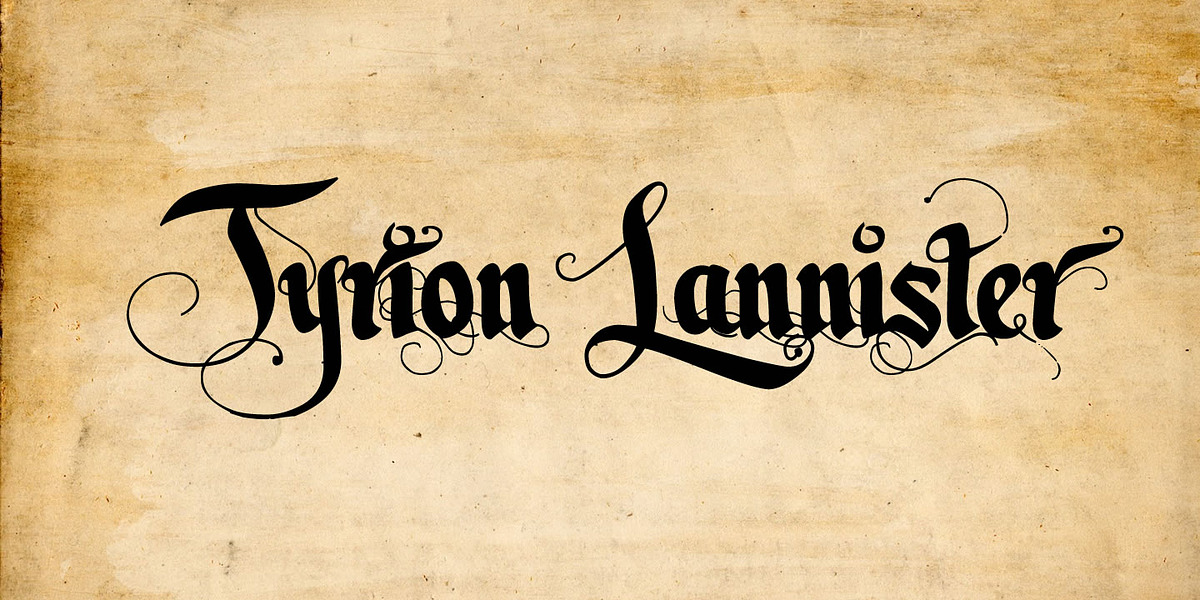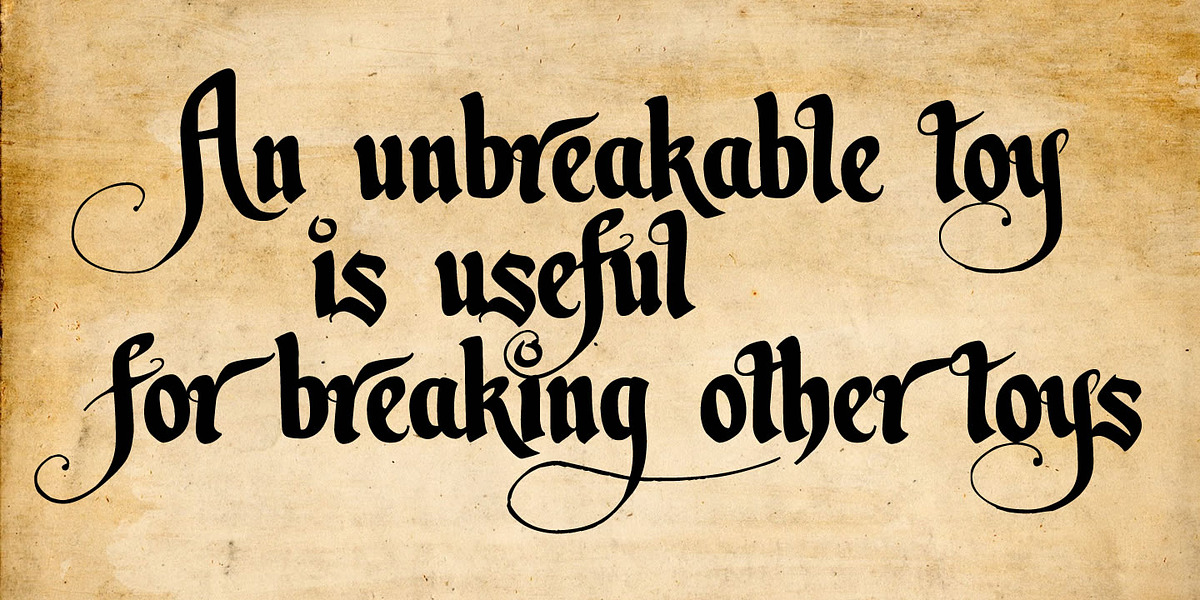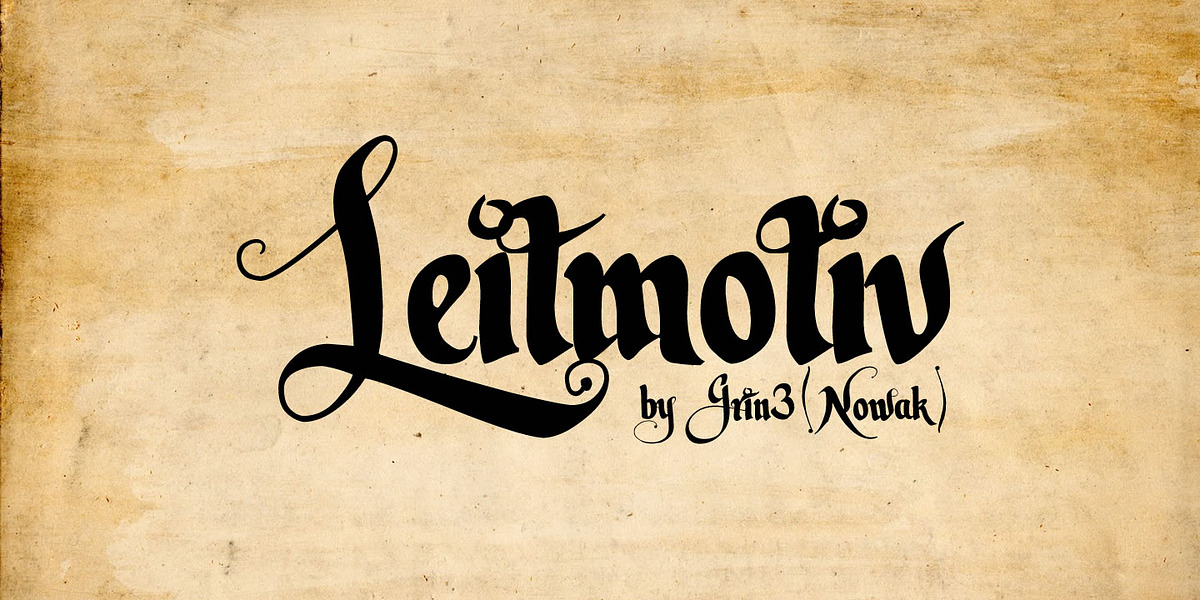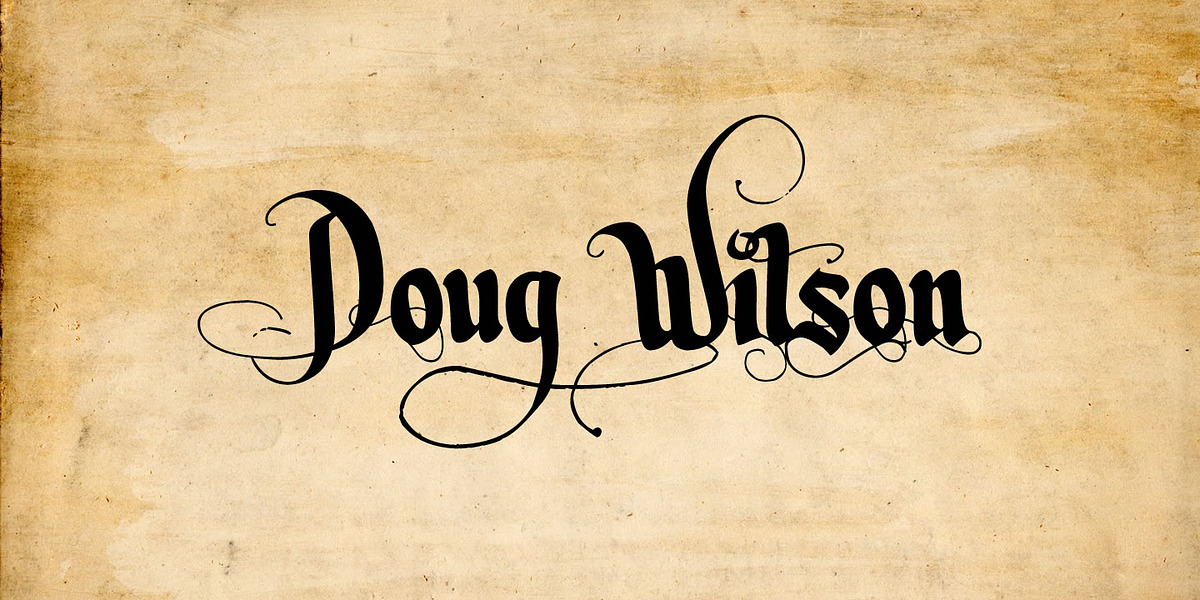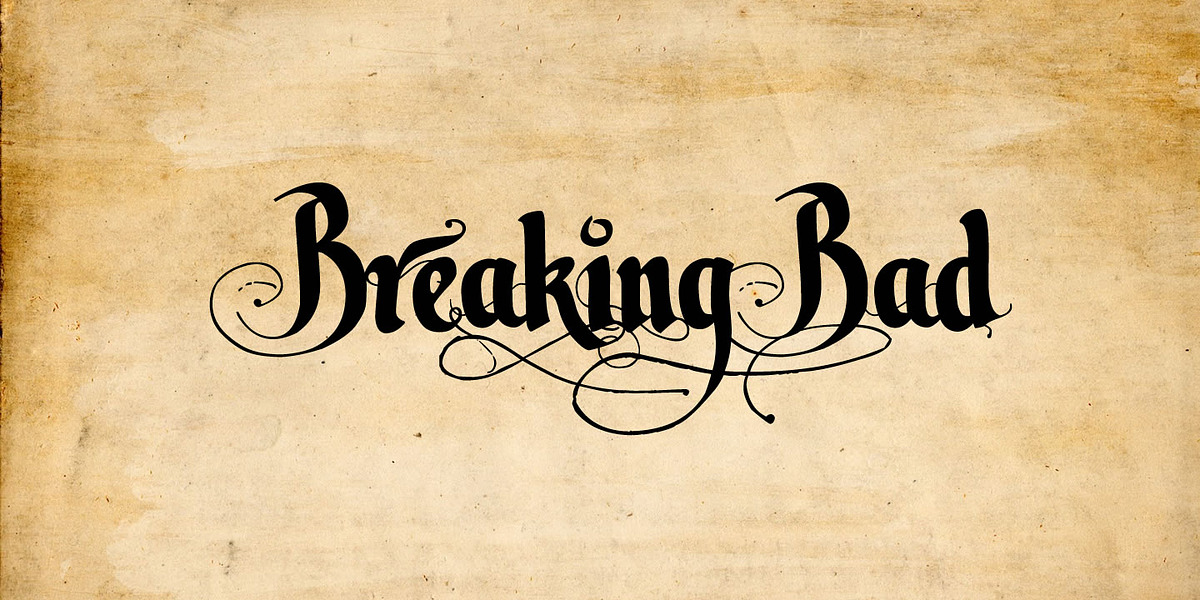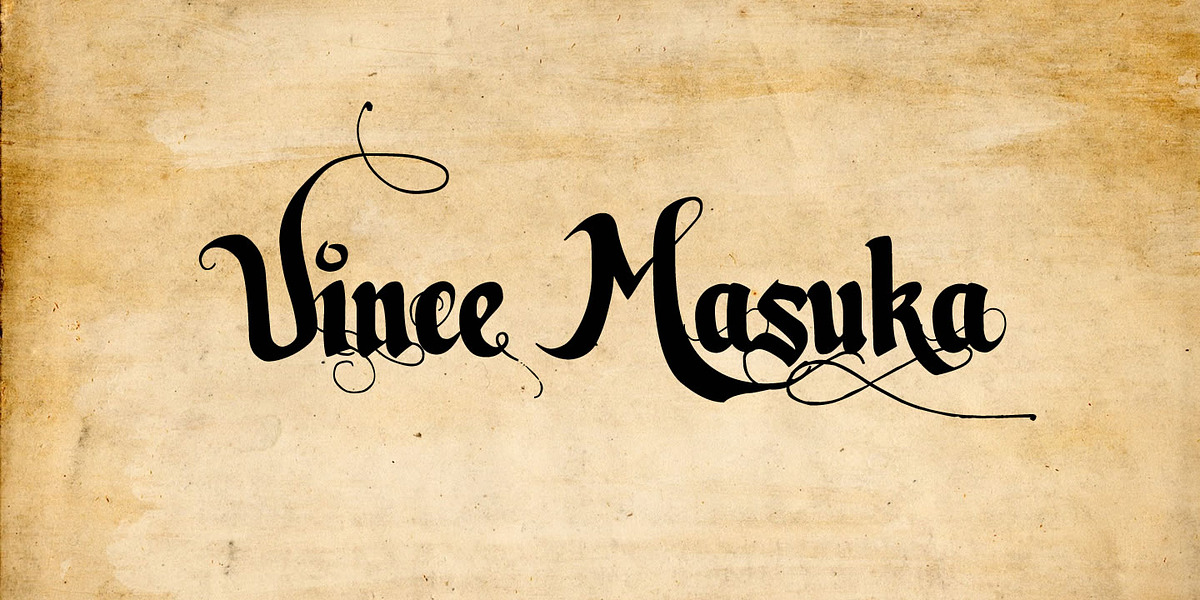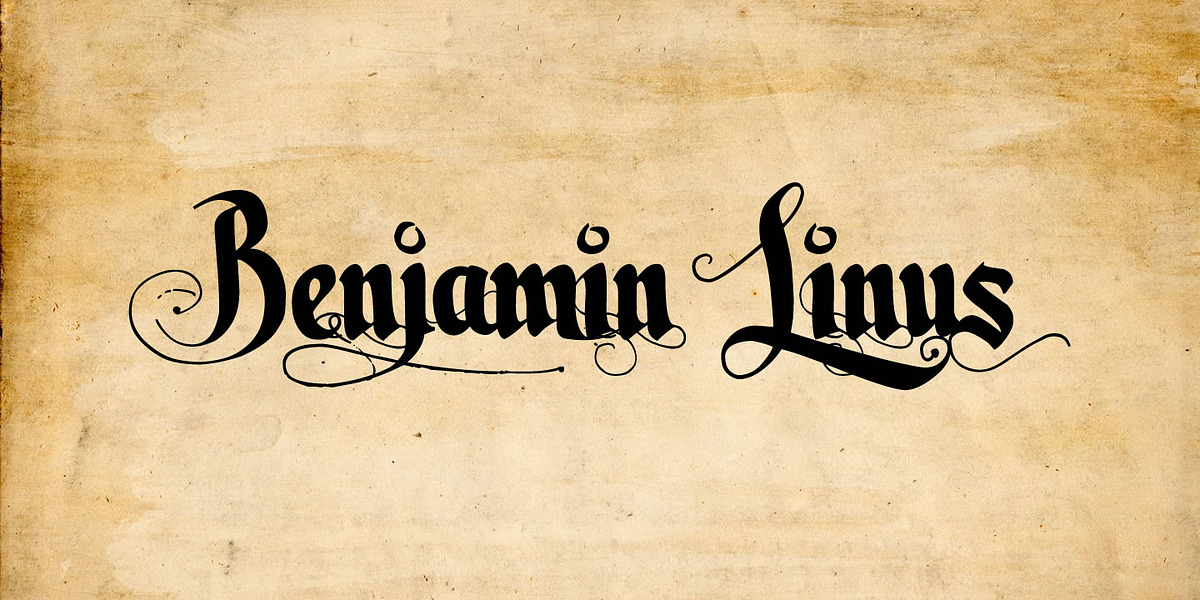
Leitmotiv
Leitmotiv is a calligraphic font designed to evoke the feel of handwritten script. It features elegant swashes and curls, making it suitable for a variety of creative applications such as invitations, greeting cards, posters, advertising materials, wedding stationery, book design, and menus.